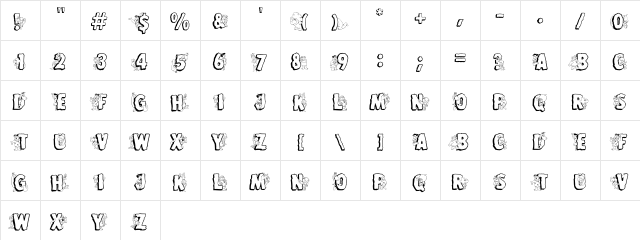
Flintstones Regular
Design Context for Flintstones Typeface
Flintstones is a composed and adaptable typeface that performs quietly and consistently across a wide range of design contexts.